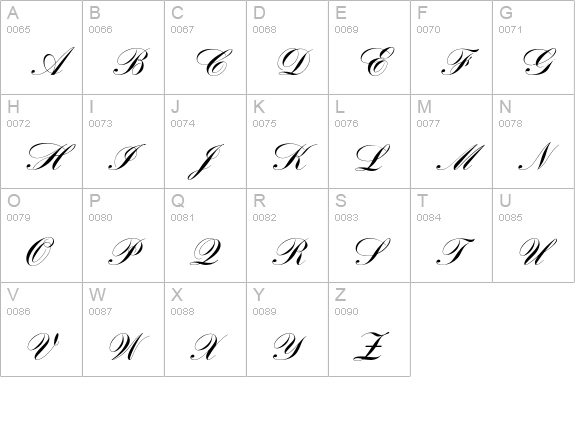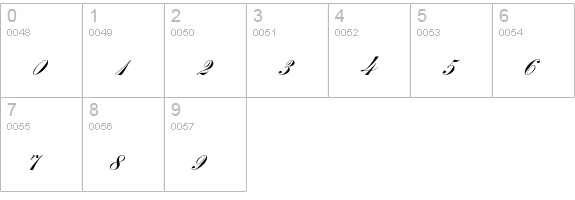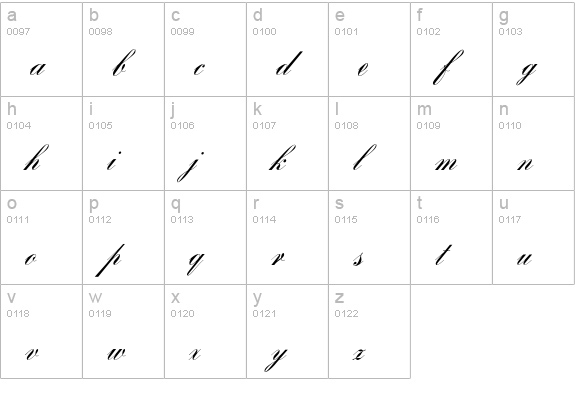
Bank Script D font is a stunning display typeface that exudes elegance and sophistication. With its sleek lines and stylish curves, this font is perfect for creating eye-catching designs that demand attention. The classic script style adds a touch of refinement to any project, making it ideal for invitations, logos, branding, and more. And the best part? Bank Script D font is completely free to download at FontsMarket.com. That's right, you can elevate your designs with this beautiful font without spending a penny. Don't miss out on the opportunity to enhance your creative projects with the timeless charm of Bank Script D font. Download it now and let your creativity soar!